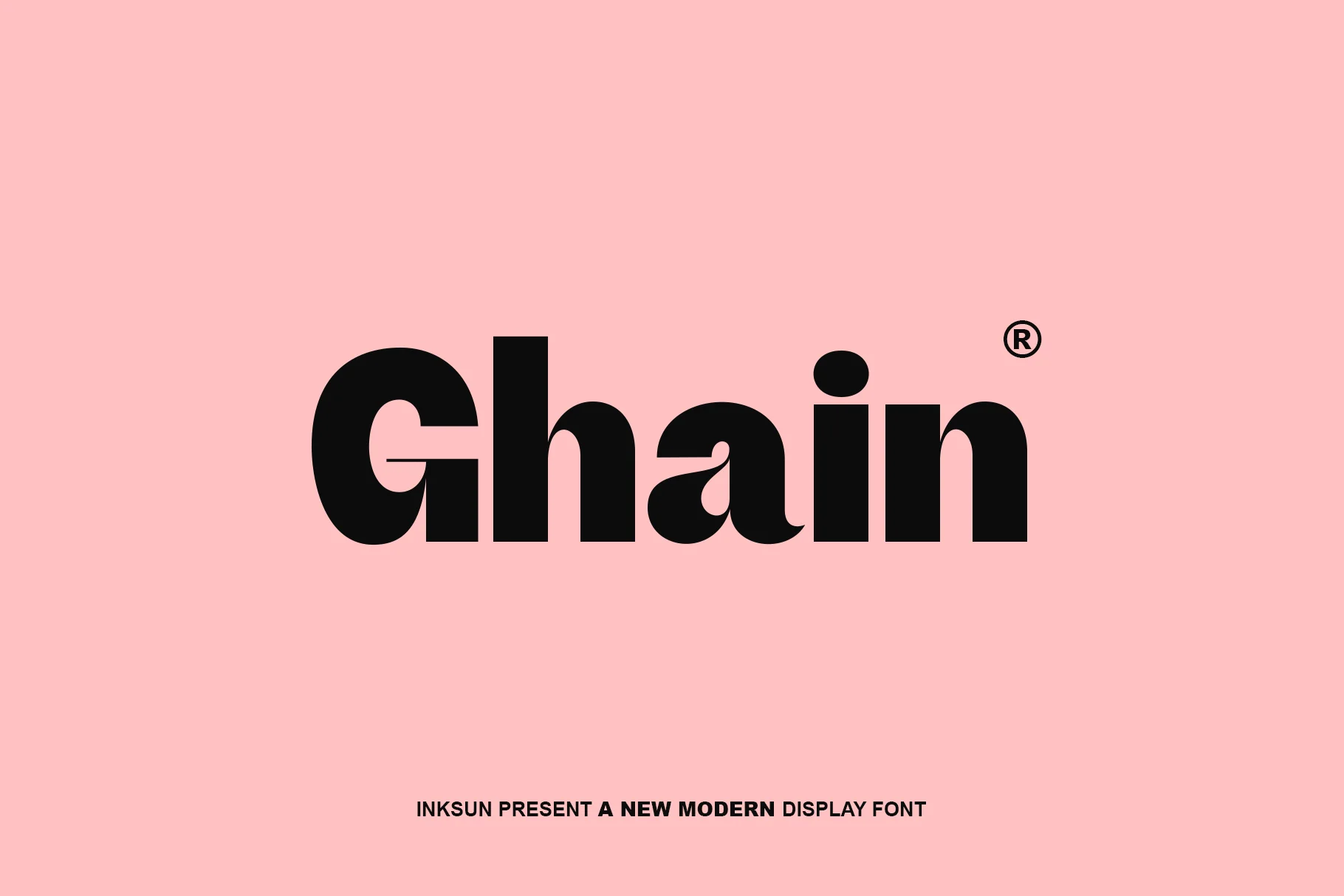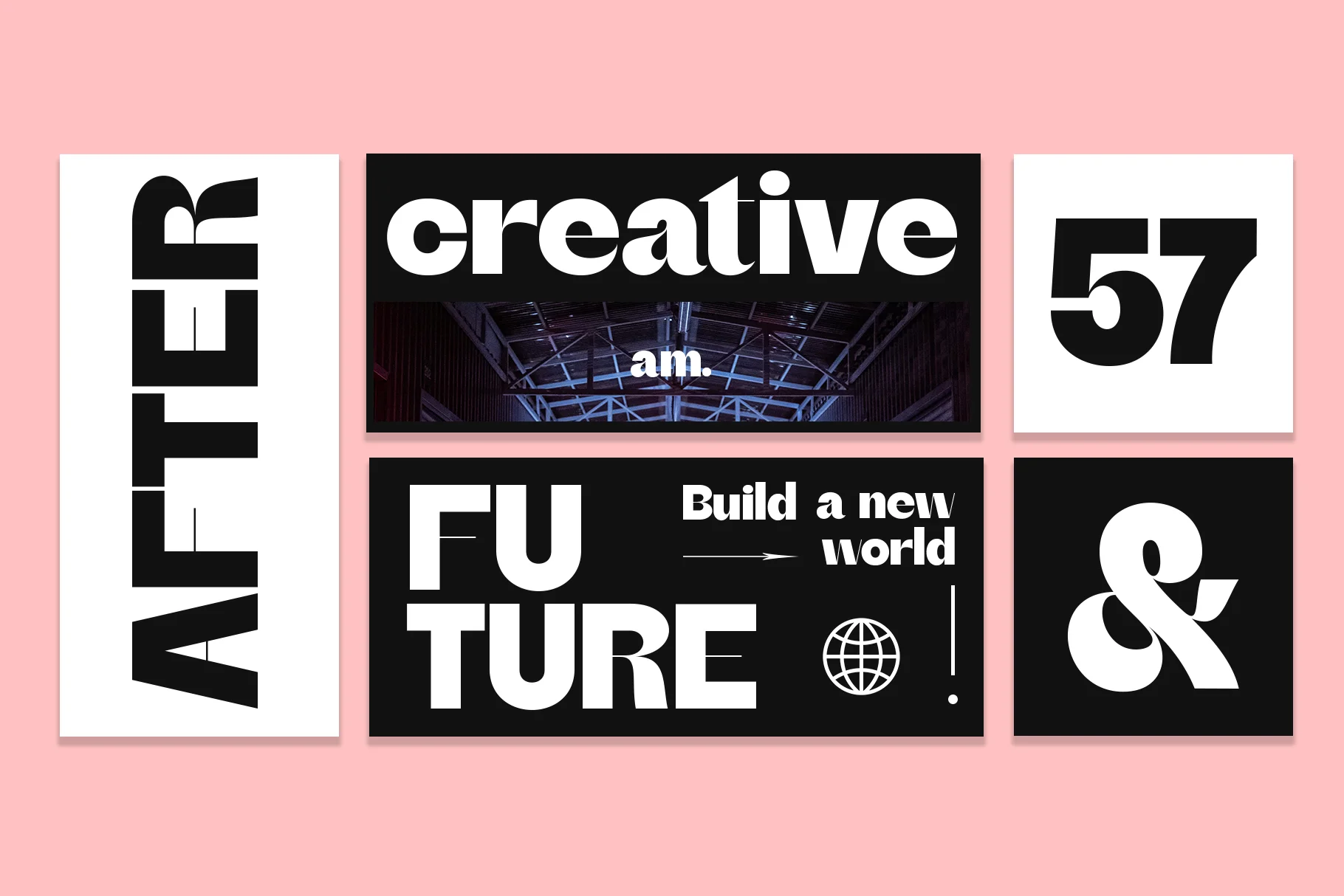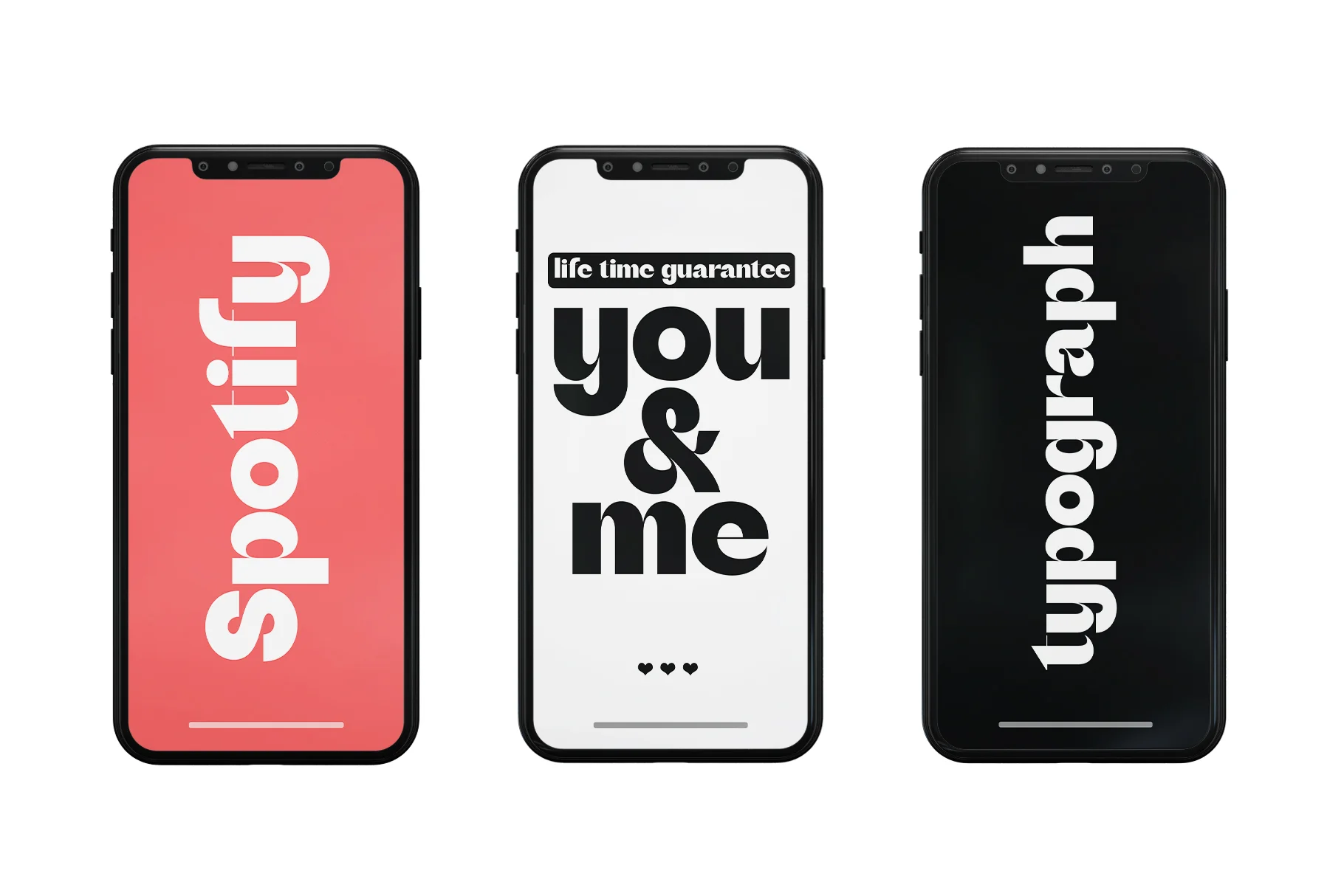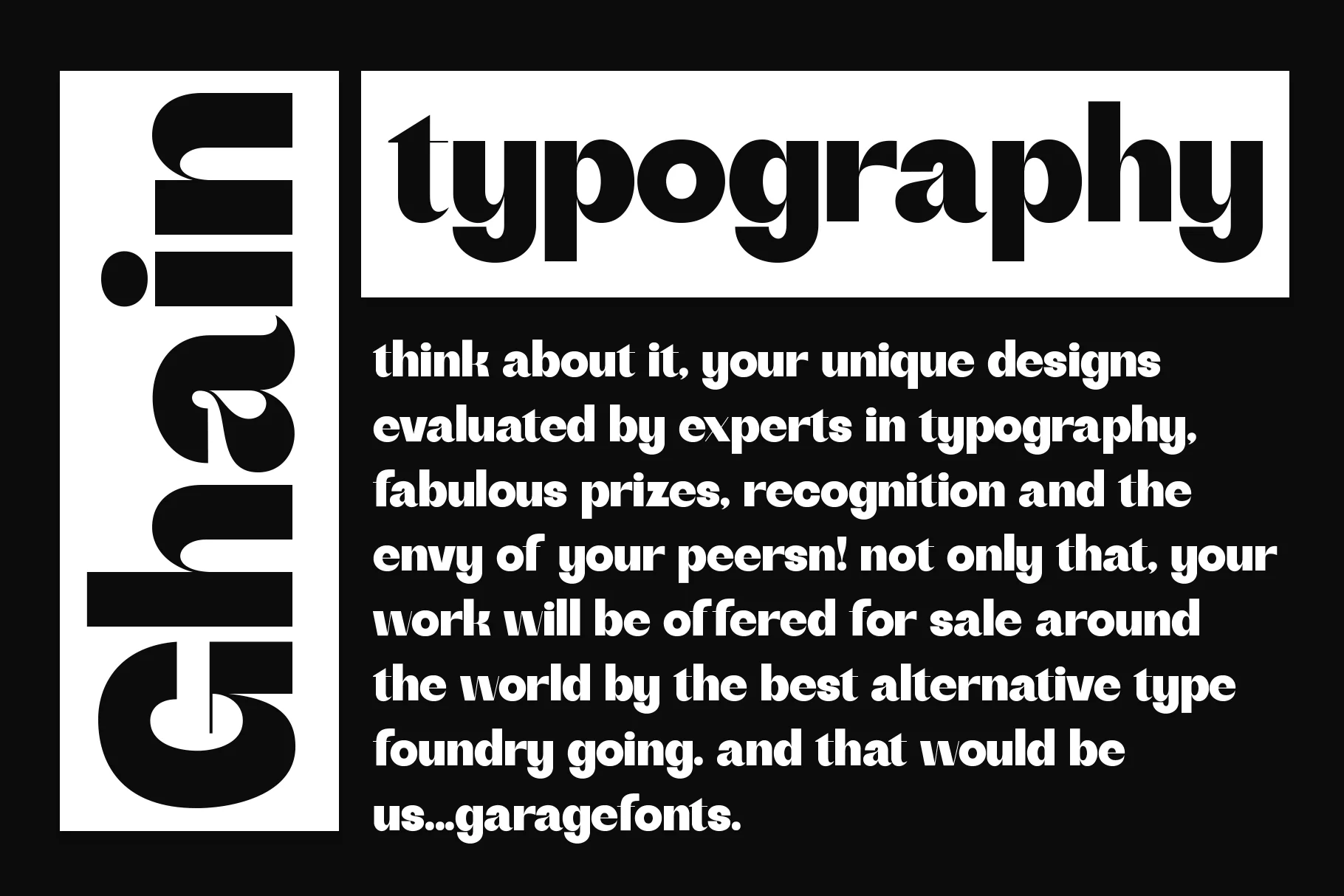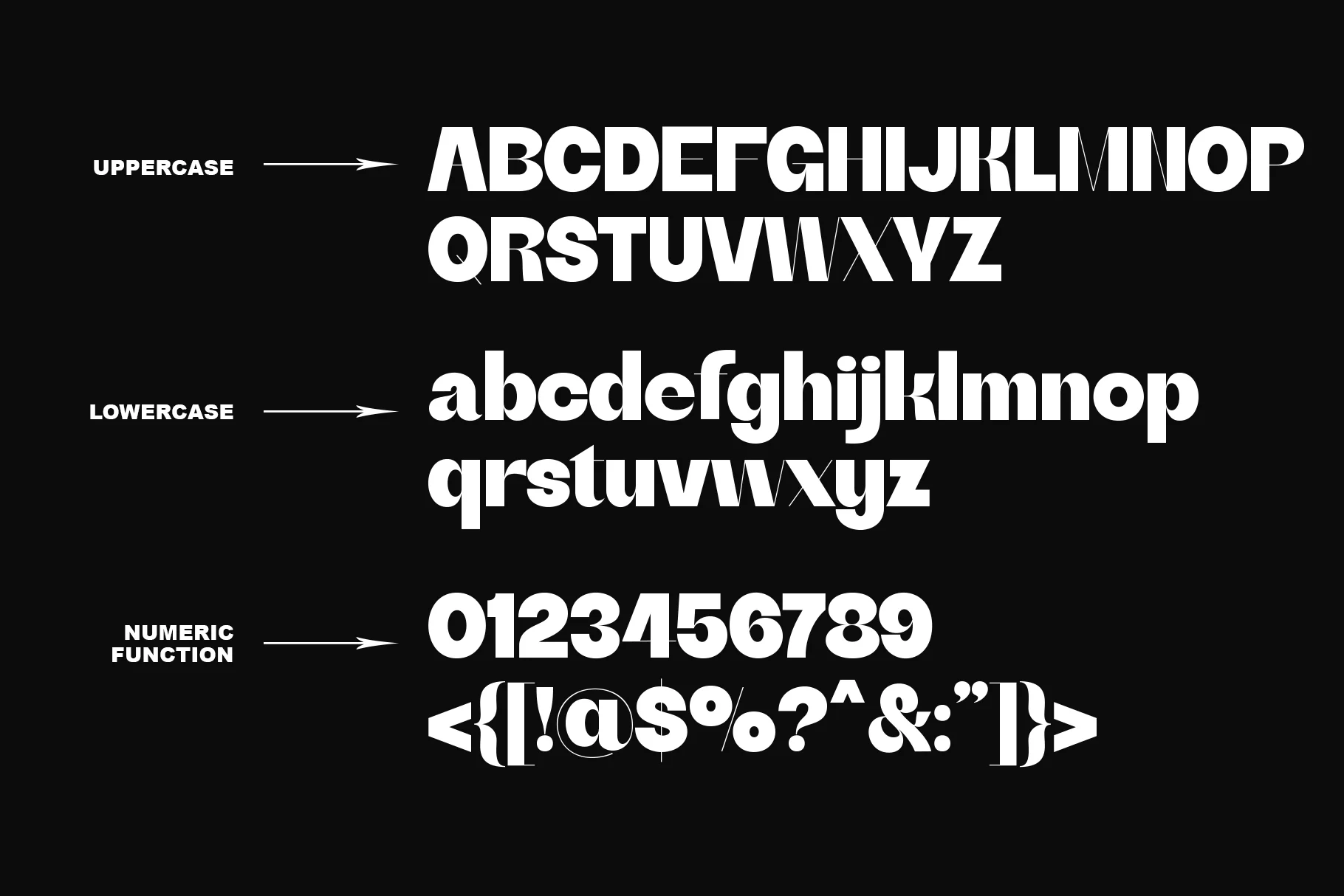
Ghain
Ghain is a display font designed by Inksun with a modern, bold, and characterful aesthetic. This font combines a solid, bold sans-serif structure with unique artistic touches in each curve, creating a futuristic yet elegant look.
With its bold and bold weight, it is highly effective in instantly attracting attention.
Despite its sturdy and geometric appearance, this font incorporates soft curves within the letters, giving it a dynamic and relaxed feel.